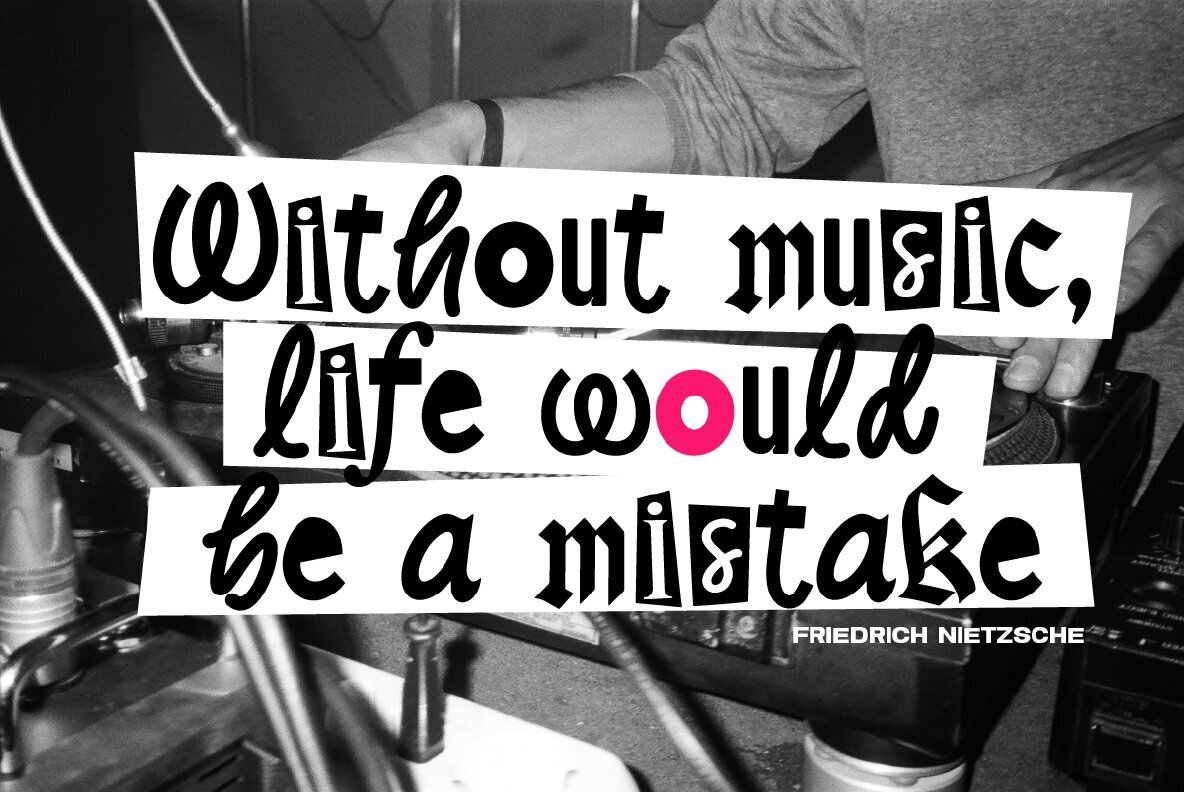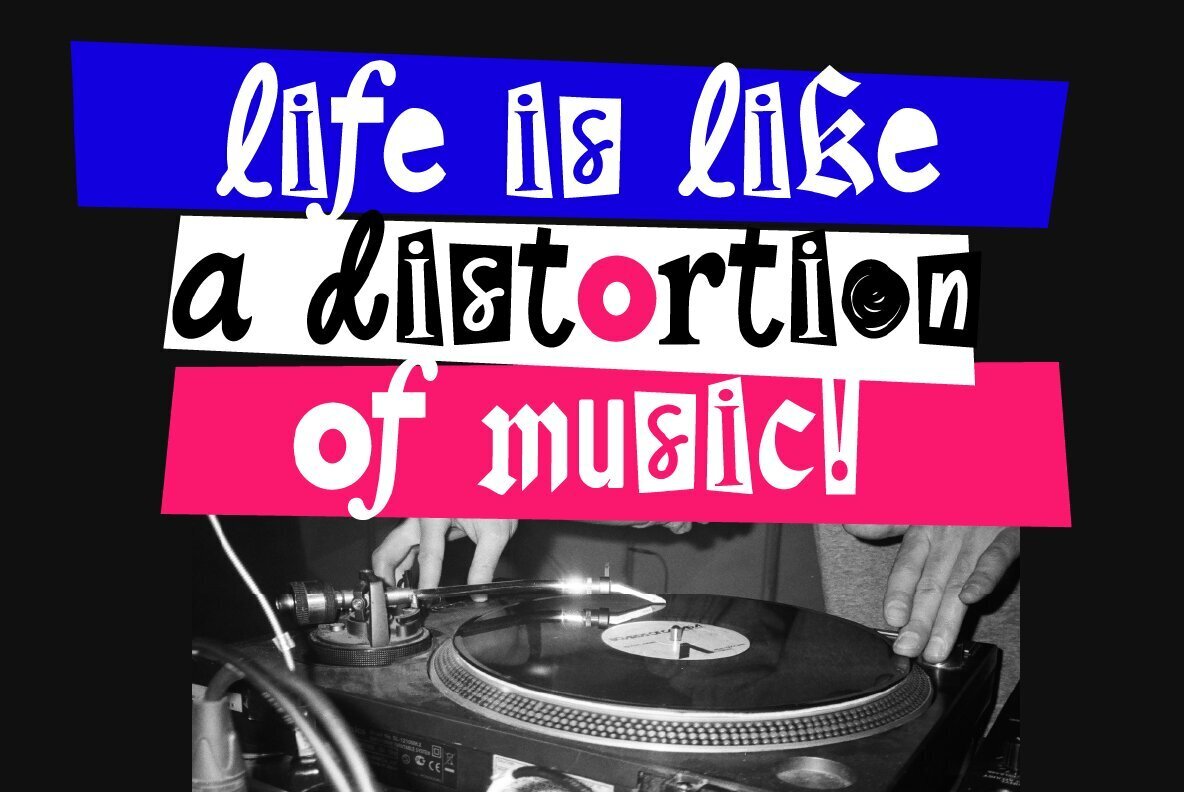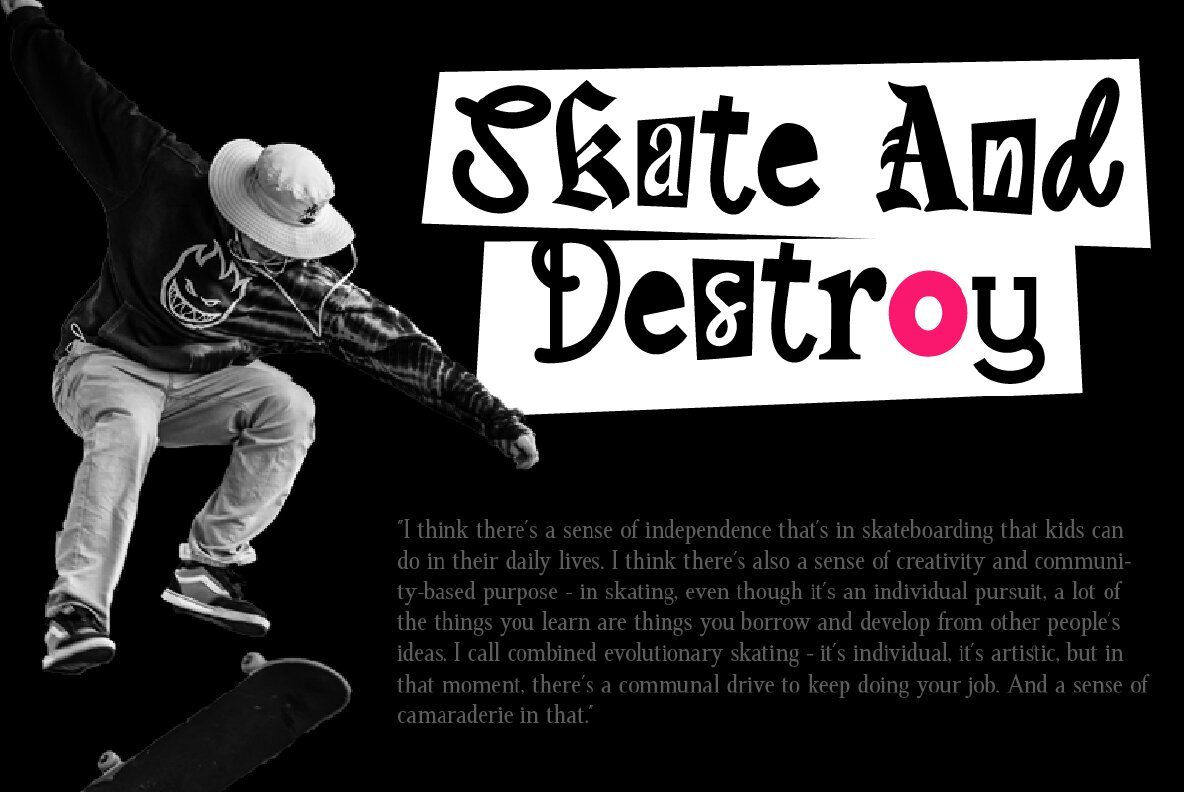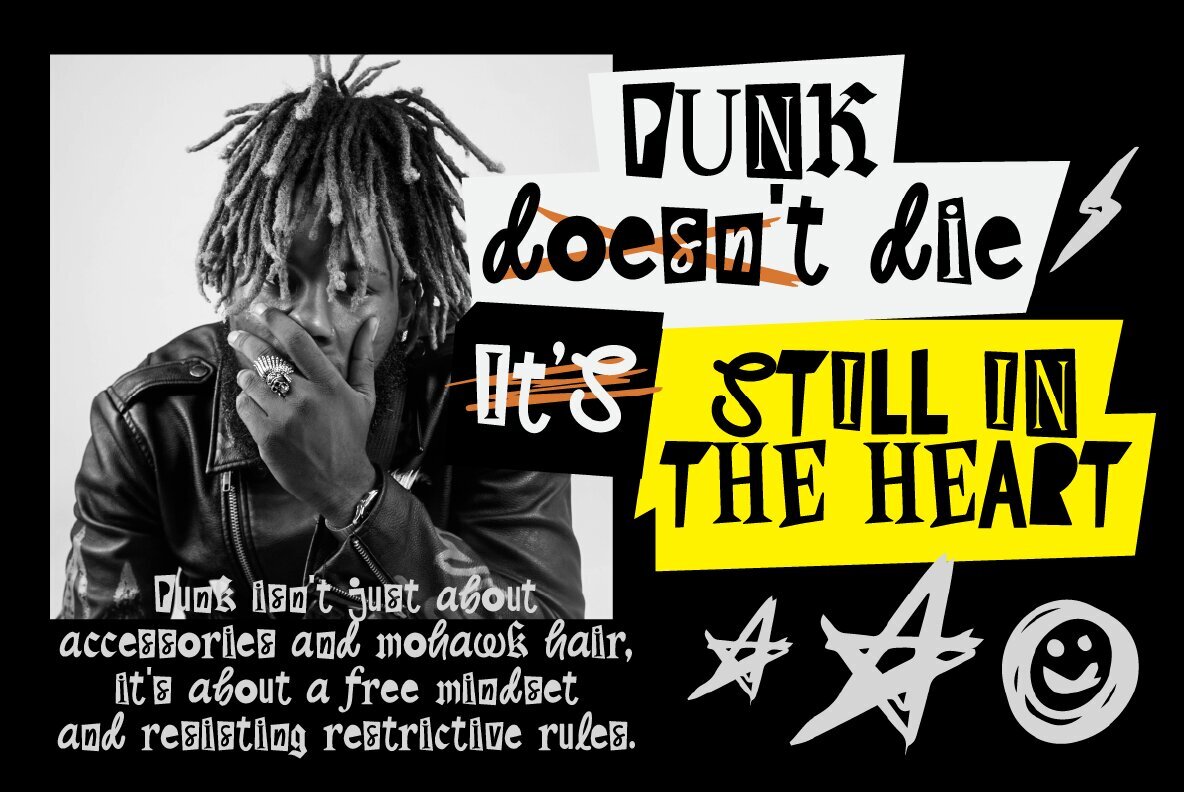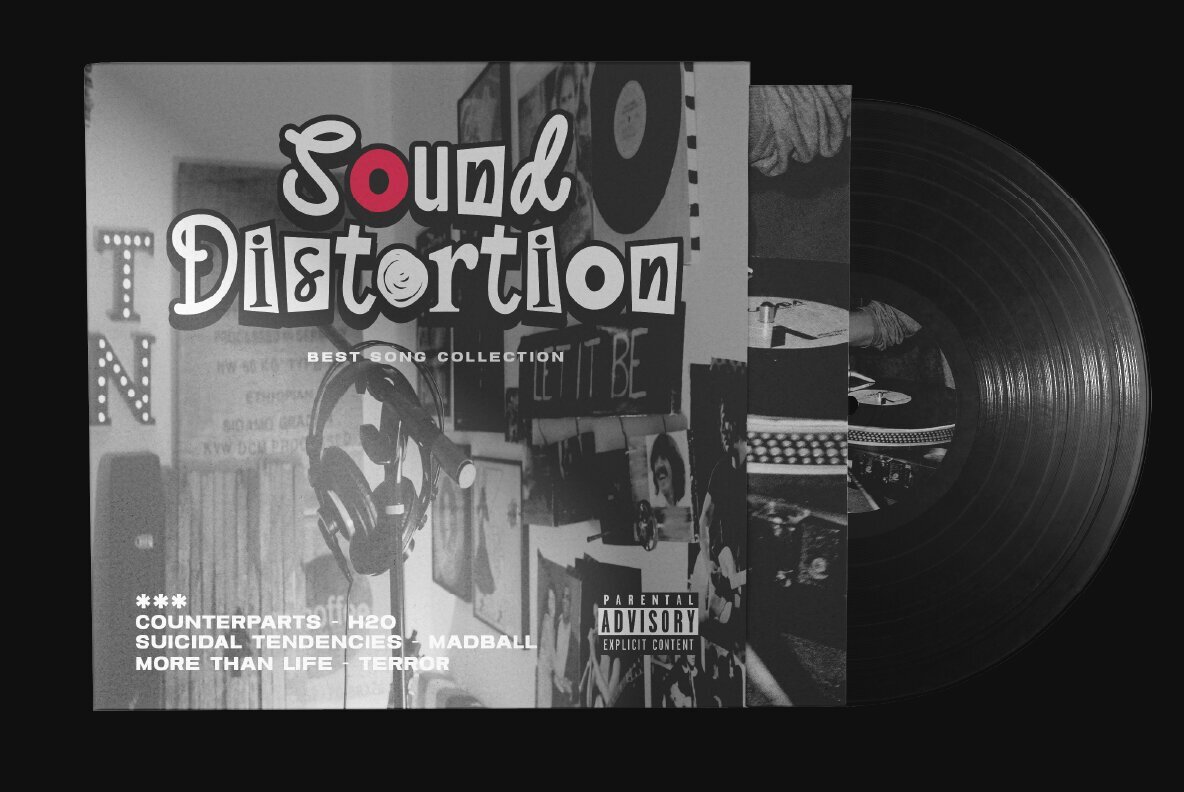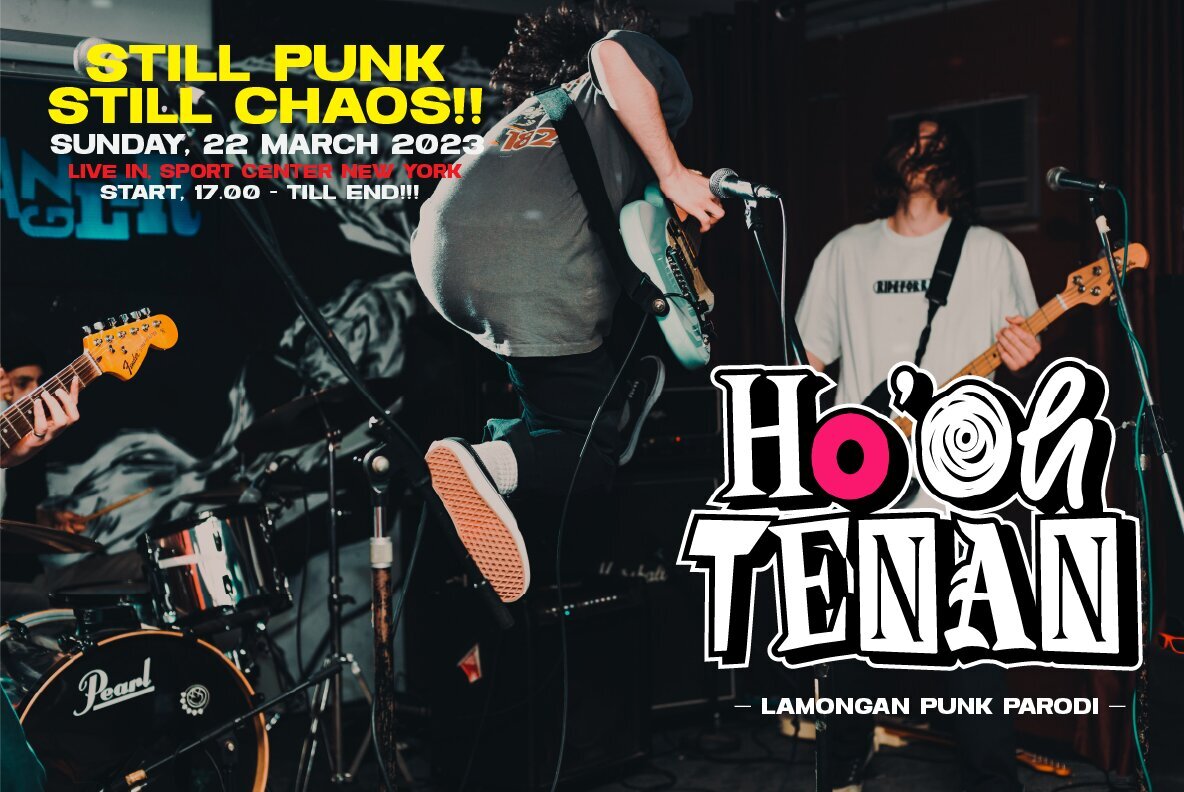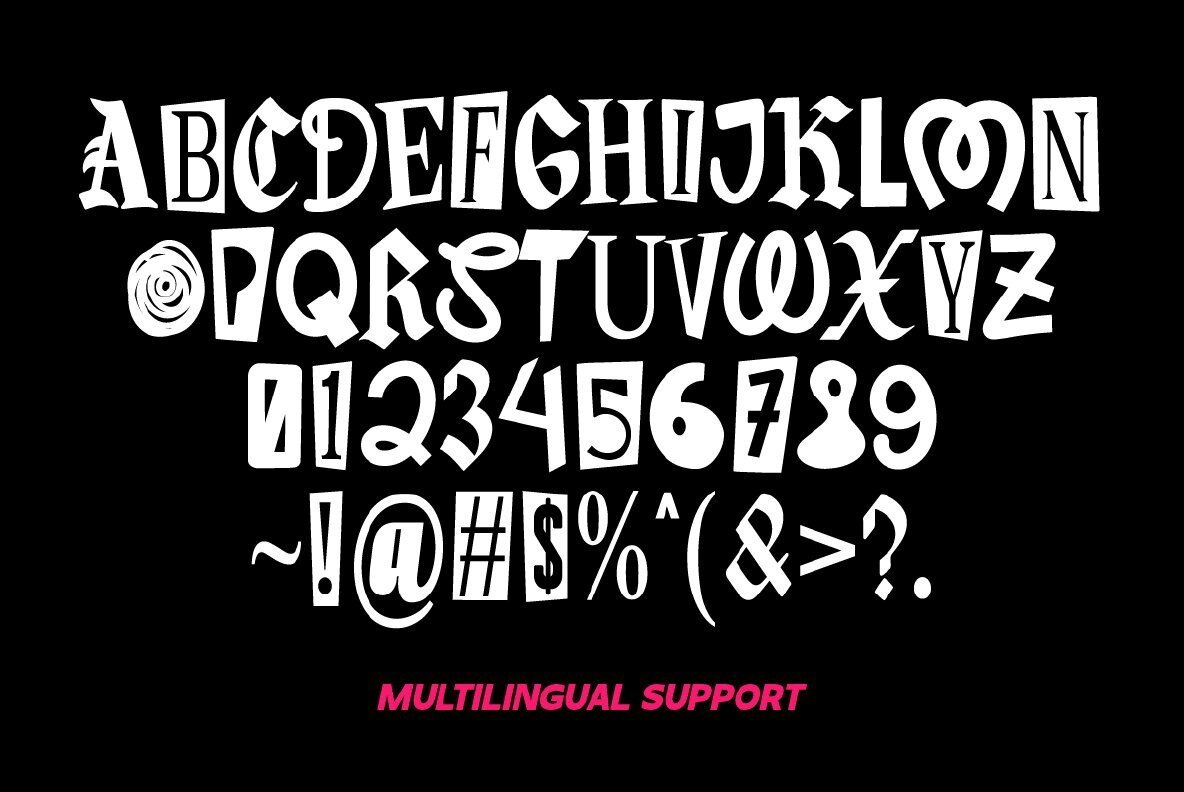
Sound Distortion Font
Sound Distortion
Inspired by the vibrant aesthetic of retro collage art, Sound Distortion captures the eclectic essence of a bygone era. This unique typeface amalgamates various styles—ranging from sans serif and condensed serif to blackletter, handwriting, and typewriter—crafting an immersive old-school experience. Every element of Sound Distortion is designed to provide versatility and flair. The mixed fonts bring a sense of dynamic chaos, reminiscent of clipping old newspapers, making it a fascinating choice for creative design projects. Explore its potential by utilizing alternate characters and navigating between uppercase and lowercase options to craft compelling visual narratives. Features:Sound Distortion: A Retro Collage Font Compilation